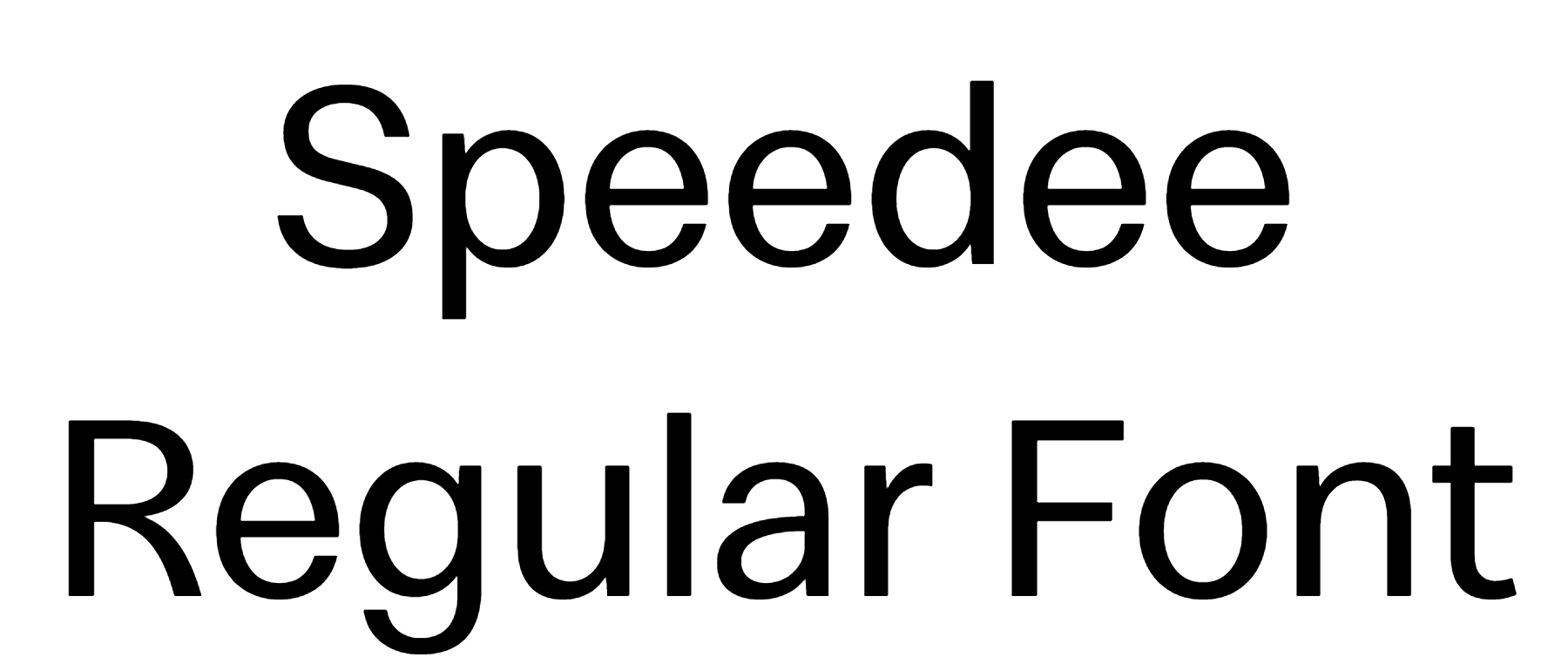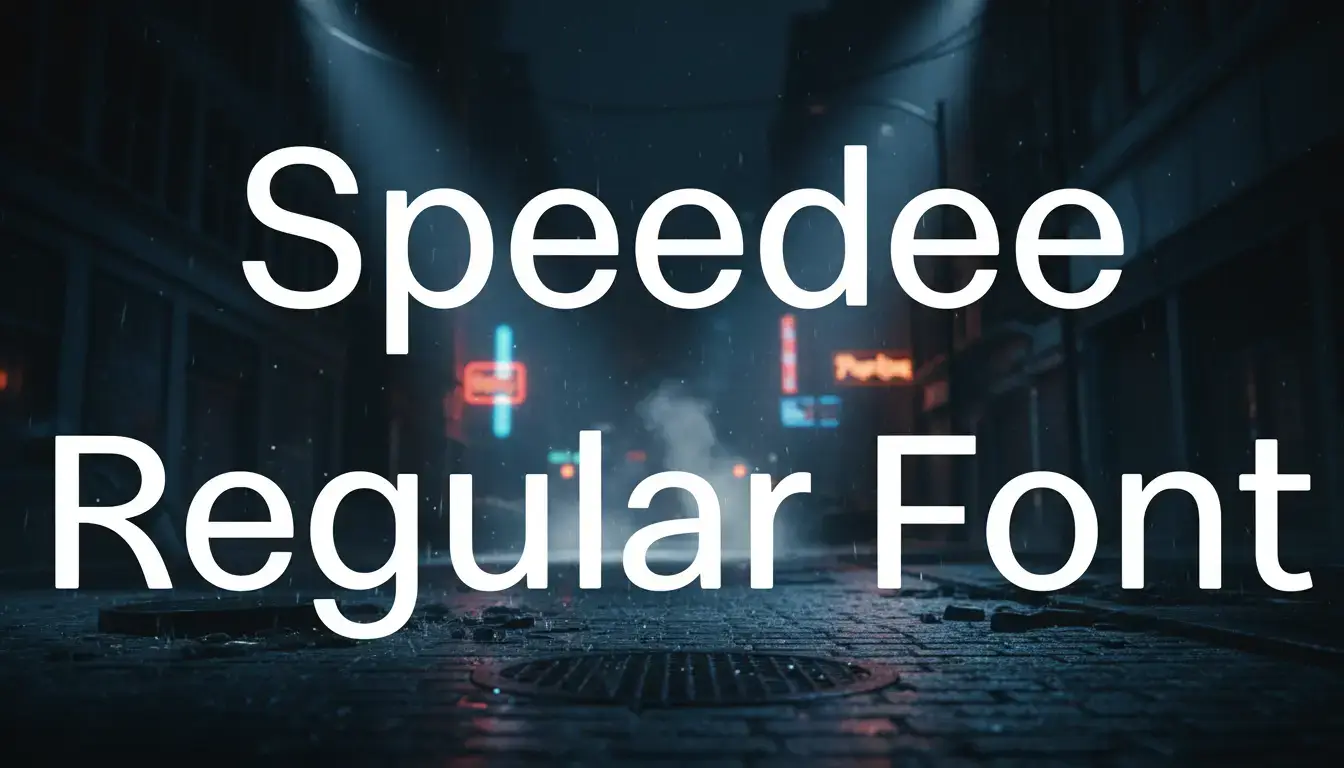
Speedee Regular
Speedee Regular is a sans serif font made by Dalton Maag Ltd (2018). It has a clean, no-nonsense look that fits modern brands and websites. You can download it for free and test it with your own words in the preview above.
You get every letter from A to Z in both cases and all the numbers from 0 to 9, which means Speedee Regular can handle full sentences, dates and prices. Common punctuation such as &, !, ? and @ is included as well. It also has the accented letters you need for Spanish, French, German, Portuguese and Italian.
Designers usually reach for fonts like Speedee Regular when they're making websites, app screens and clean logos. It works for headings and body text alike. If the download has several weights, use a heavier one for titles and a lighter one for paragraphs.